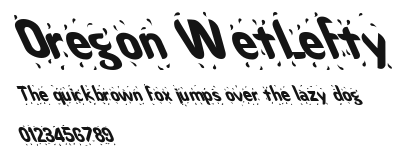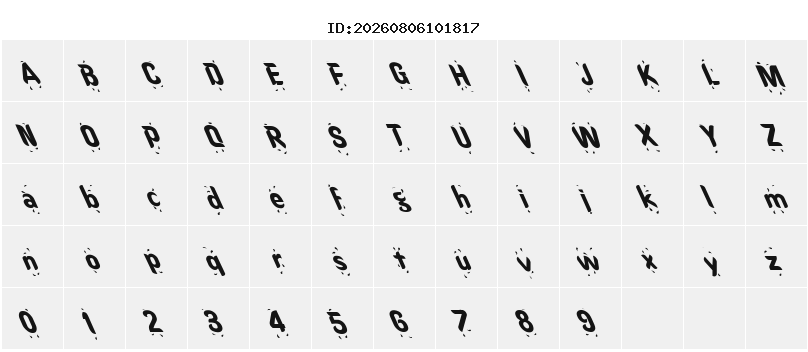
Oregon WetLefty Preview
• Font Name: Oregon WetLefty
• Full Font Name: Oregon WetLefty
About Oregon WetLefty.ttf
Oregon WetLefty.ttf is a modern, elegant sans-serif font designed for ultimate readability and visual harmony. Perfect for branding, headlines, web design, and print materials.